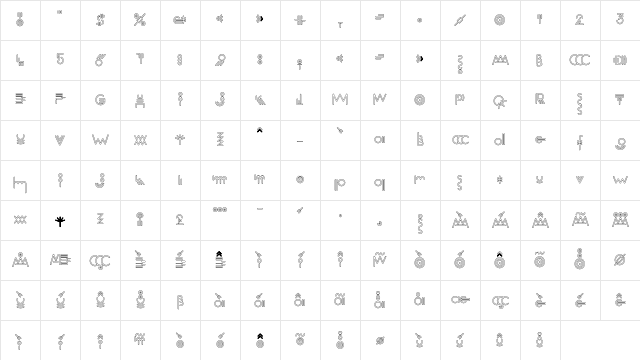
Yakkmakk Regular
Design Context for Yakkmakk
Yakkmakk is a composed and adaptable typeface that performs quietly and consistently across a wide range of design contexts.